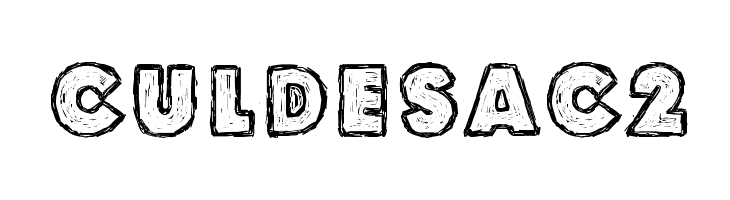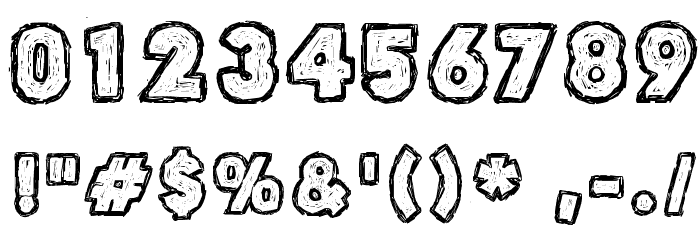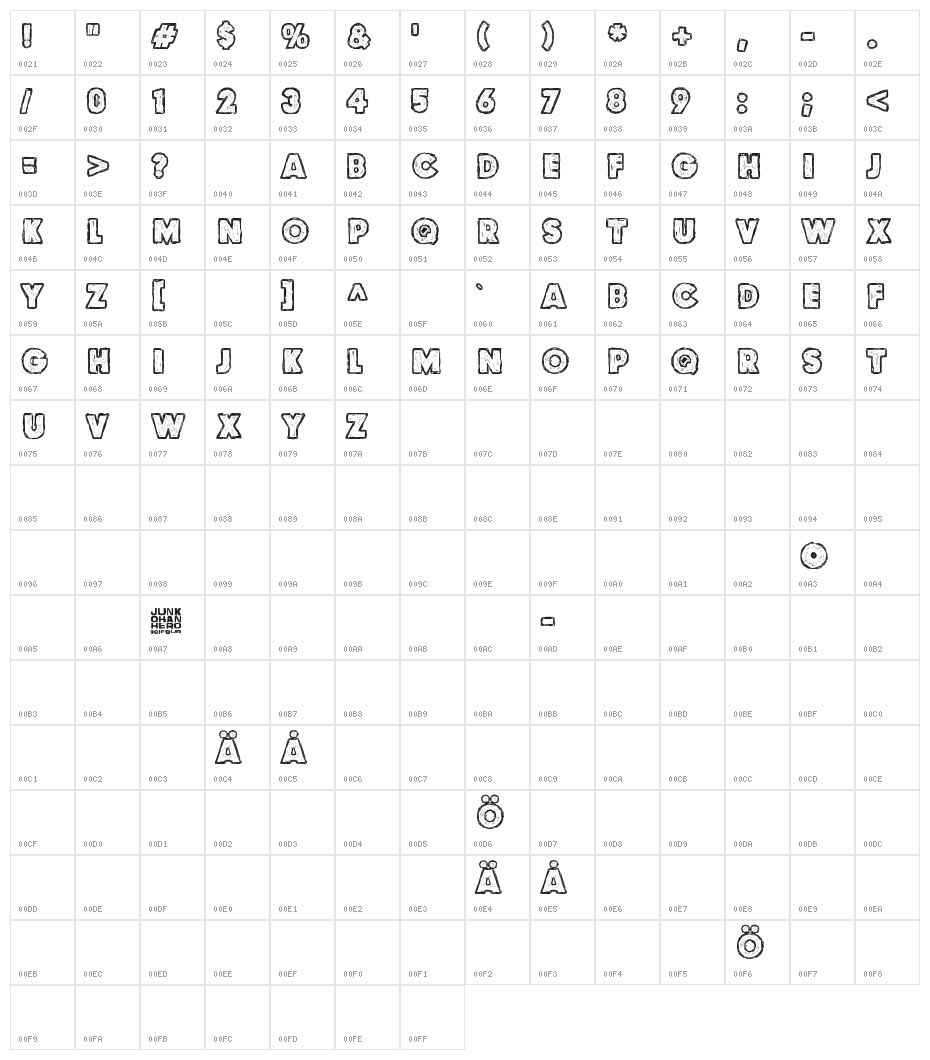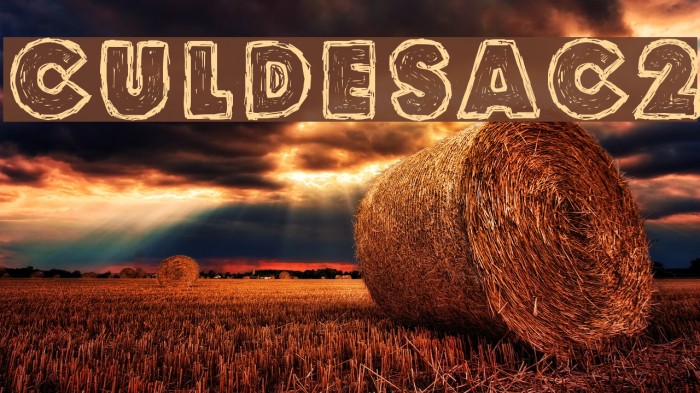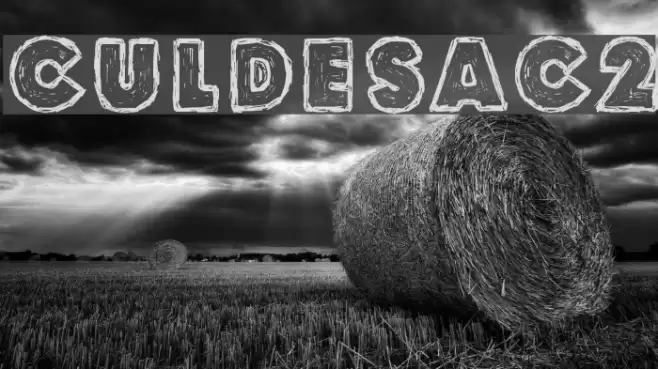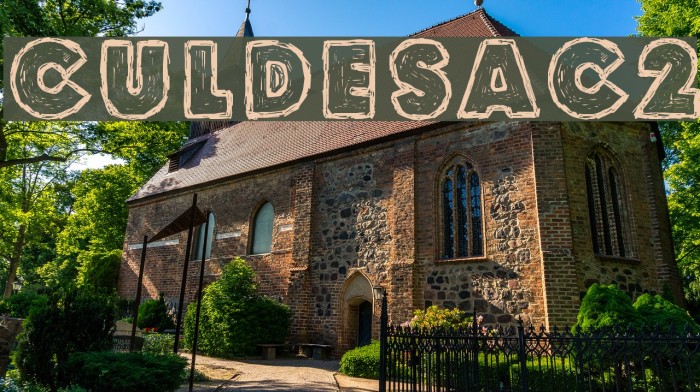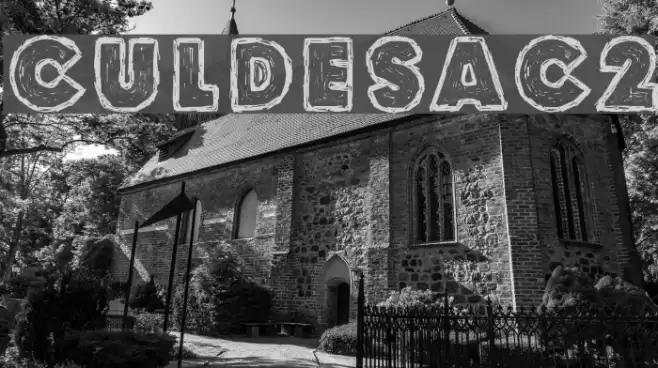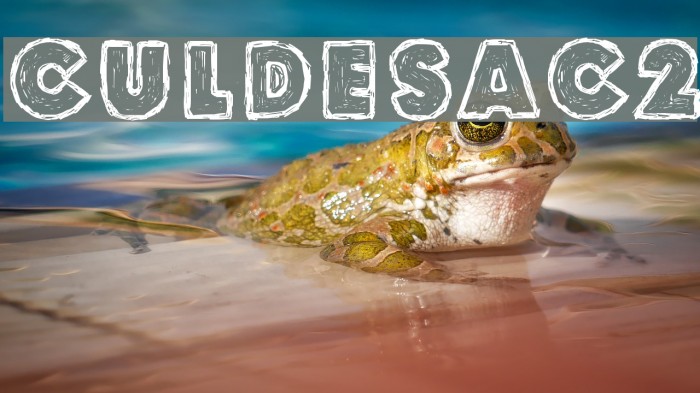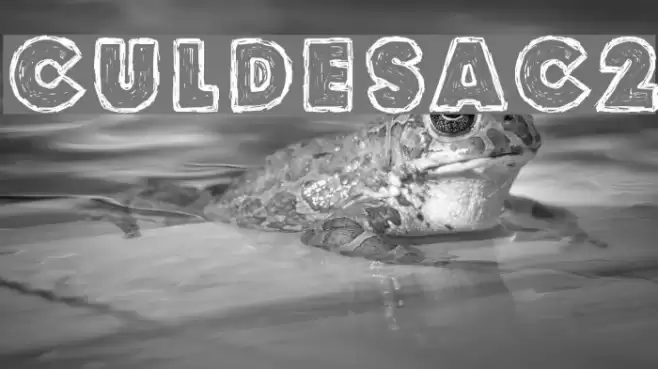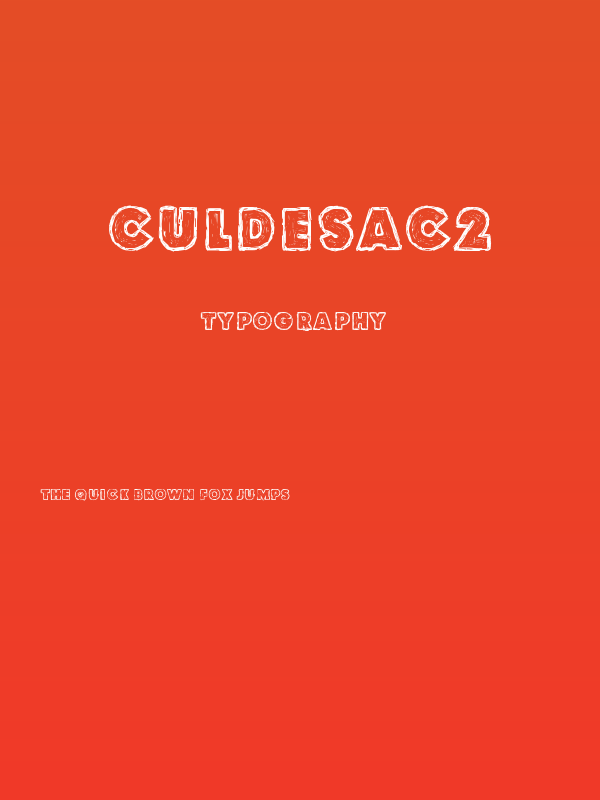
Culdesac2 Font
Culdesac2 Description
This font features a bold and playful design with a textured, hand-drawn appearance. Each character is outlined with a rough, sketch-like quality, giving it a unique and artistic feel. The letters are uppercase and lowercase, with numbers and a variety of special characters included. The style is reminiscent of chalk or crayon drawings, making it ideal for creative and informal projects. The font's distinct texture adds depth and personality, making it stand out in any design. It's perfect for projects that require a fun and engaging visual element.
| Overall Style | Playful, Artistic |
| Use Case | Headlines, Posters, Creative projects |
| Proposed Projects | Ideal for children's books, posters, greeting cards, and playful branding. |